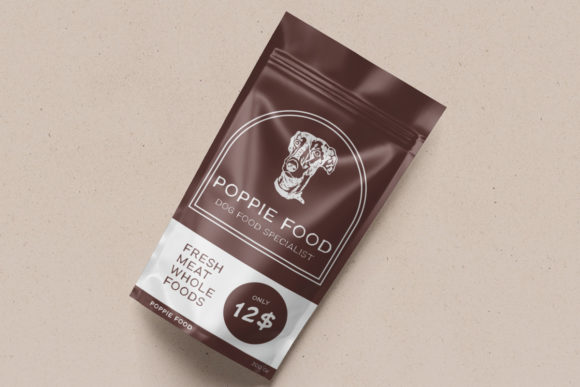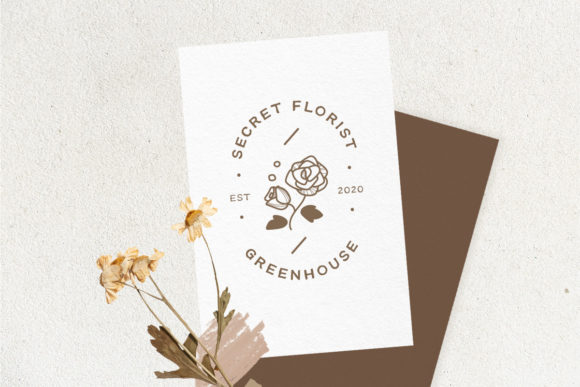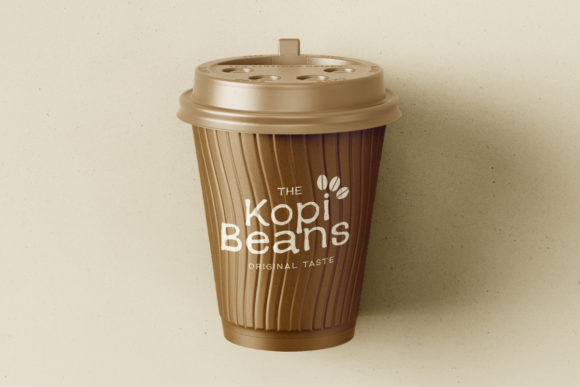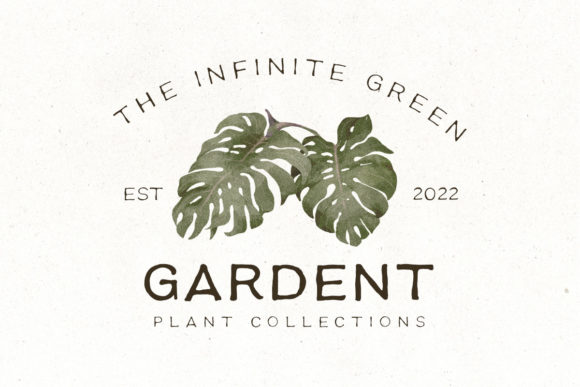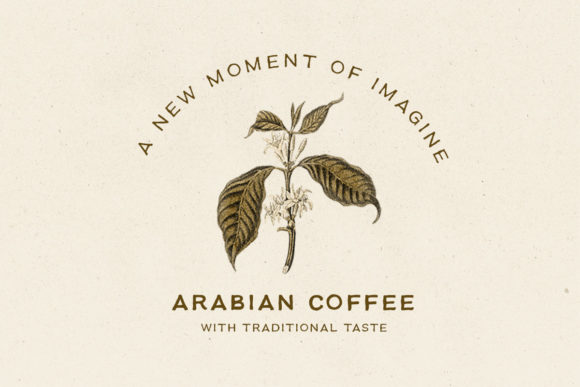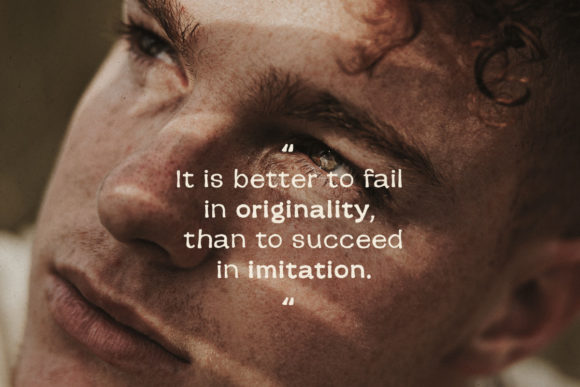
Earth Tone Font
Earth Toneis an elegant and modern sans serif font. This minimalist and clean vibe can easily apply to your favorite designs such as book covers, magazines, social media posts, invitations, and so much more!